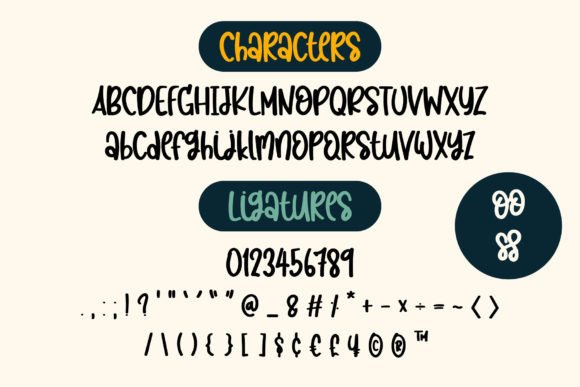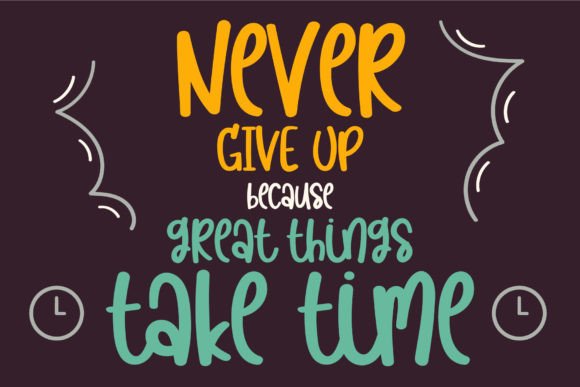
Introduction to Latin Dancing Font
Have you ever stumbled upon the perfect design element that elevates your entire creative project? For designers, finding that one special resource can be a game-changer. It happened to me when I discovered the Latin Dancing Font – a simple yet joyful handwritten font that immediately caught my eye. Its casual charm and effortless readability made me wonder how I ever managed without it.
As I delved deeper into the world of this delightful font, I realized that its versatility is truly unmatched. Whether you’re working on a high-quality design for a client or a personal project, the Latin Dancing Font is an excellent choice. Its transparent background makes it easy to pair with busy backgrounds or use as a standalone headline, adding a touch of whimsy and personality to any design.
What makes the Latin Dancing Font truly valuable for designers is its ability to add a human touch to even the most complex designs. It’s a free download that’s available for anyone to use, making it an excellent design resource for creatives of all levels.
Key Features of Latin Dancing Font
- High-quality, vector-based design for a scalable and versatile font
- Perfect design resource for creative projects, including invitations, posters, and social media graphics
- Unique, hand-drawn style that captures the energy and passion of Latin dancing
Honest Review: Latin Dancing Font
I recently stumbled upon the Latin Dancing Font, and I must say it’s a fantastic design resource. As a designer, I’m always on the lookout for high-quality fonts to elevate my creative projects. This font definitely delivers.
What works well about this font is its vibrant and energetic vibe, perfect for projects that require a lively and playful touch. The font is available as a free download, which is a huge plus. The transparent background is also a nice touch, allowing for seamless integration into any design. The font itself is also highly customizable, making it a great asset for designers who like to experiment with different styles.
- ✨ Vibrant and energetic vibe, perfect for creative projects
- ✨ Available as a free download, making it a great value
- ✨ Highly customizable for designers who like to experiment
However, I do have a few minor quibbles. The font could benefit from a more comprehensive character set, and some users may find the font a bit too ornate for certain projects. Additionally, the font’s size and weight may not be suitable for all applications. ⚠️
Overall, I’m impressed with the Latin Dancing Font and would definitely recommend it to fellow designers. While it may have some limitations, its unique style and high quality make it a valuable addition to any design resource library.
Experiment with different font sizes and colors to create a visually appealing design. Use the Latin Dancing Font in conjunction with other design elements to add depth and energy to your project.
1. Event invitations and promotional materials
2. Dance studio or fitness center branding
3. Music festival or concert posters